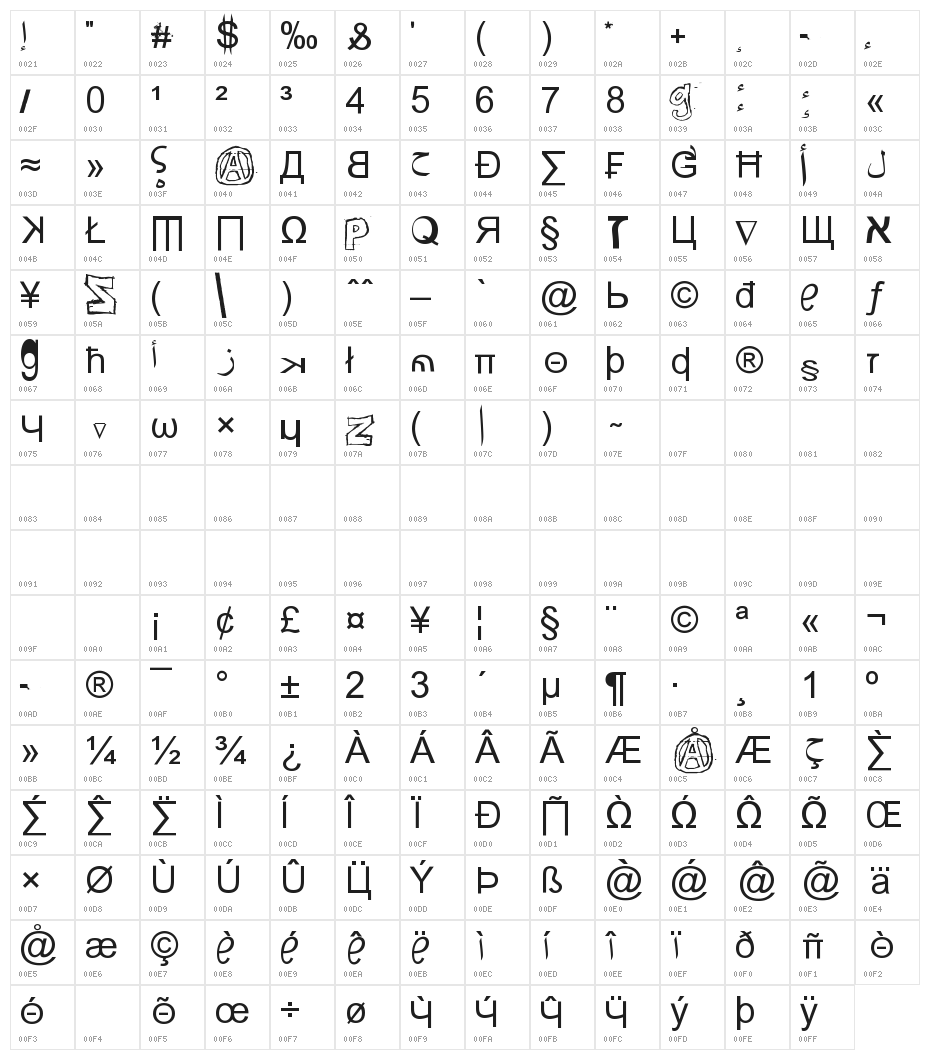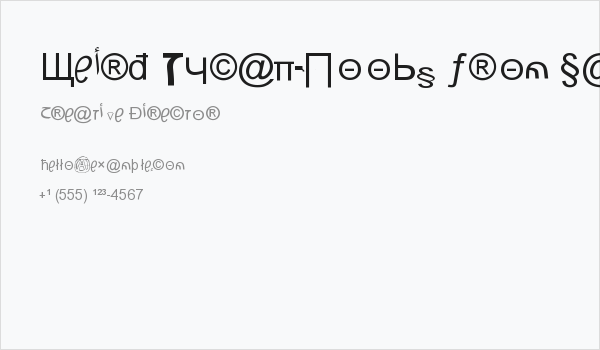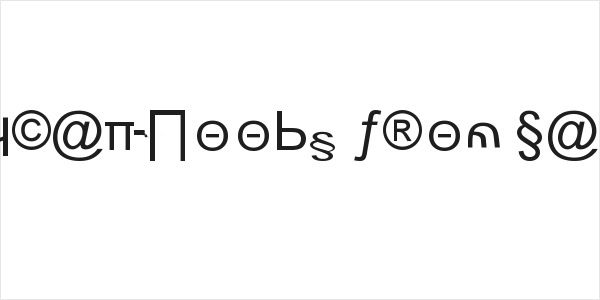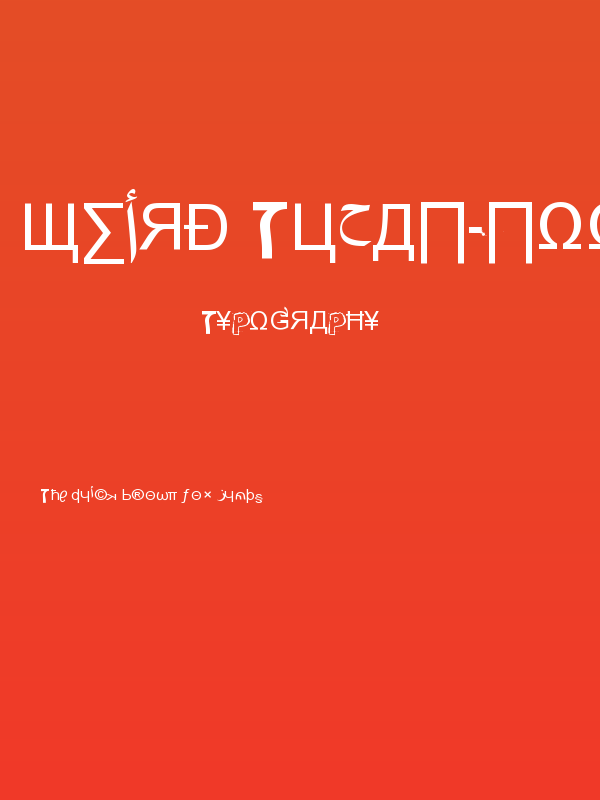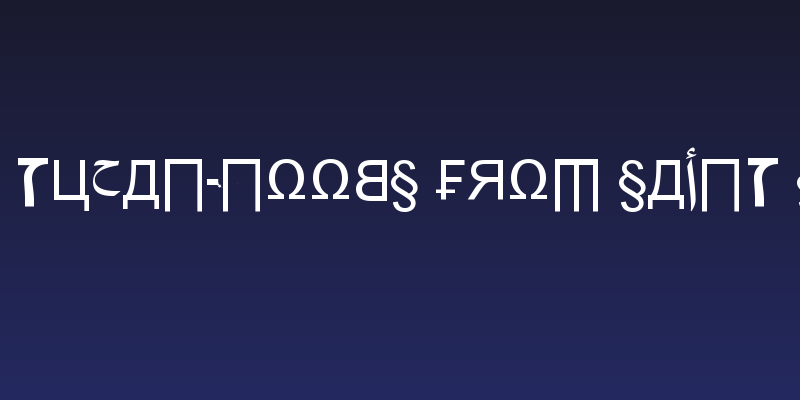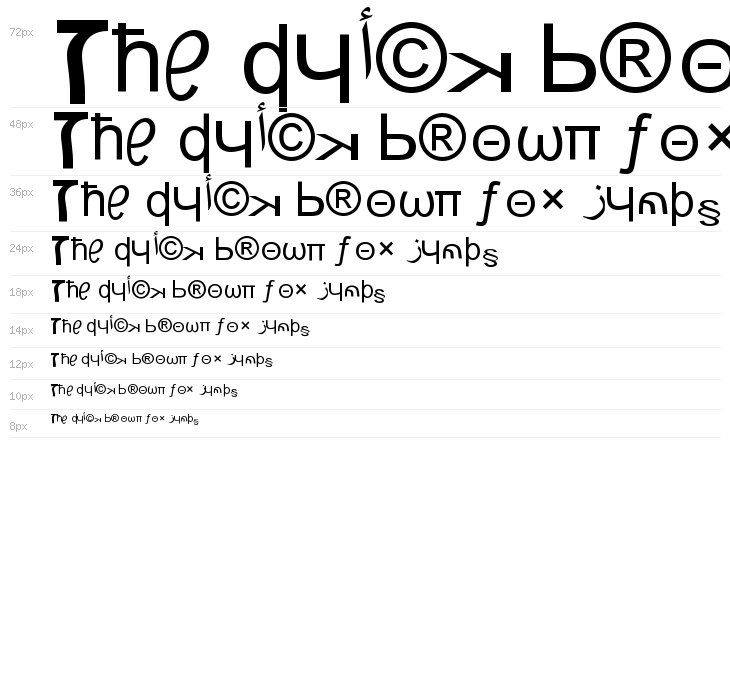
Weird Tucan-Noobs from Saint Seson Font
Weird Tucan-Noobs from Saint Seson Description
This font exhibits a highly eclectic and unconventional style, combining elements of both geometric and abstract design. The characters are a mix of sharp angles and smooth curves, creating a dynamic and unpredictable appearance. Some letters incorporate unique symbols and shapes, deviating from traditional letterforms. The overall look is bold and experimental, with a playful yet chaotic aesthetic. This font challenges readability norms, making it more suitable for artistic or decorative purposes rather than practical text applications.
| Use Case | Logos, Artistic designs, Posters |
| Proposed Projects | Ideal for artistic designs, experimental posters, avant-garde branding, and creative digital art projects. |